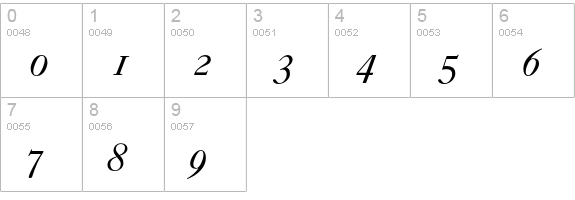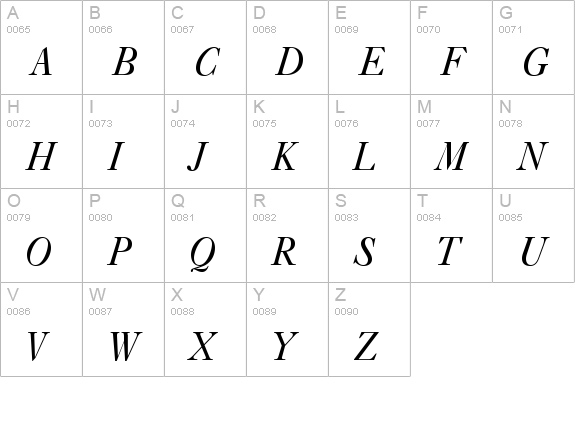
Caslon 540 Italic Oldstyle Figures Font Details
Caslon 540 Italic Oldstyle Figures is a distinctive, italic variant in the Caslon typeface family \xE2\x80\x94 well suited to design and typography projects.
Caslon 540 Italic Oldstyle Figures font is a classic and elegant typeface that exudes sophistication and charm. Its graceful italic style with oldstyle figures adds a touch of timeless beauty to any project. The flowing curves and intricate details of this font make it perfect for use in headings, titles, and other design elements where a touch of refinement is desired. What sets Caslon 540 Italic Oldstyle Figures font apart is its versatility and readability, making it suitable for a wide range of applications from print materials to digital designs. Whether you're creating a wedding invitation, a book cover, or a branding project, this font will add a touch of class and elegance to your work. The best part is that Caslon 540 Italic Oldstyle Figures font is available for free download at FontsMarket.com. Now you can elevate your design projects with this beautiful font without breaking the bank. Don't miss out on the opportunity to add this timeless typeface to your font collection and bring a touch of sophistication to your designs.